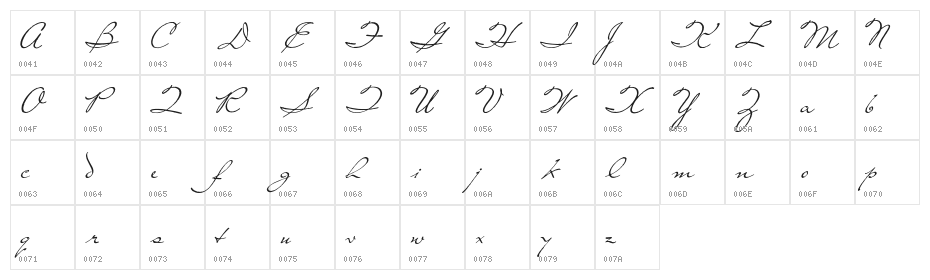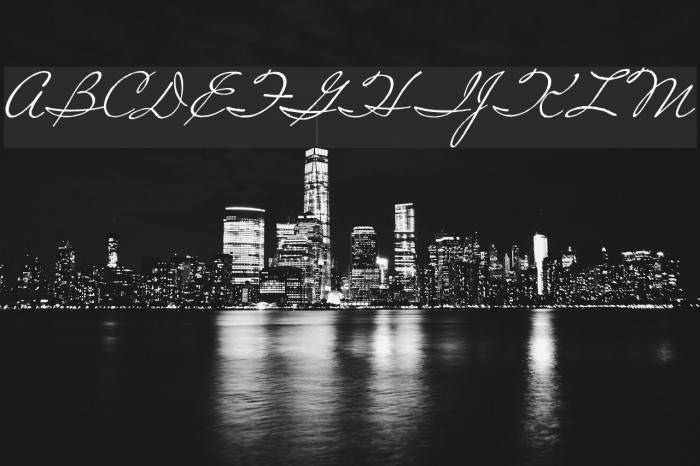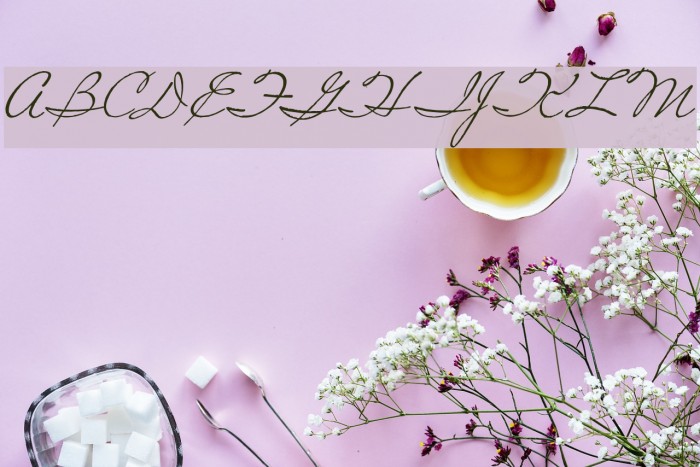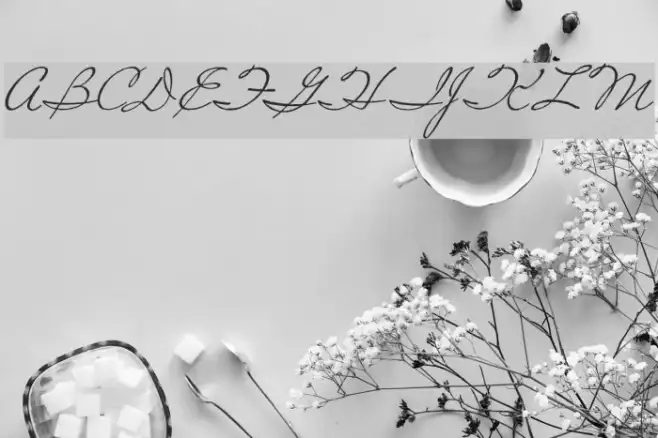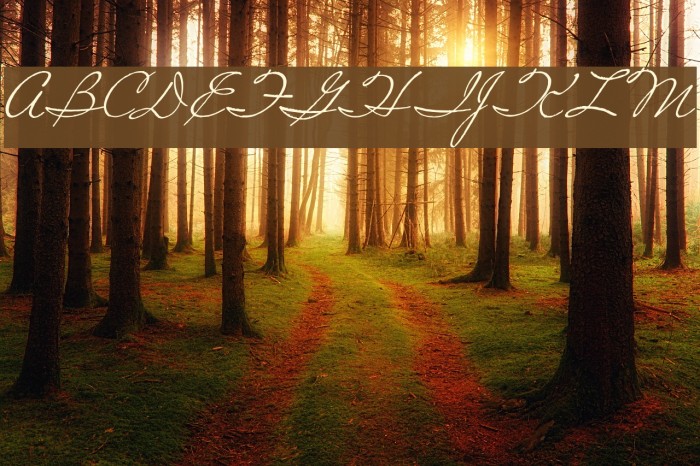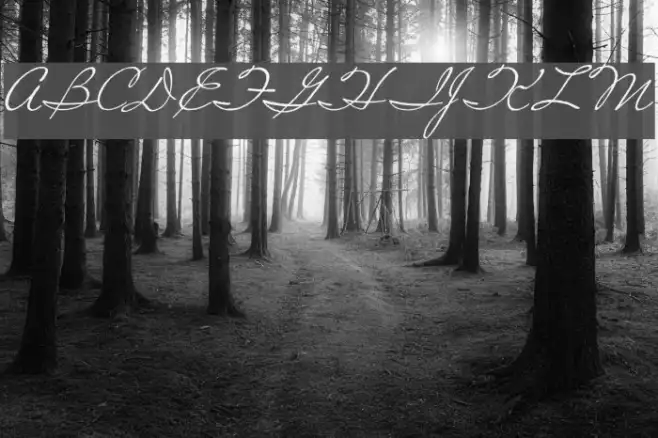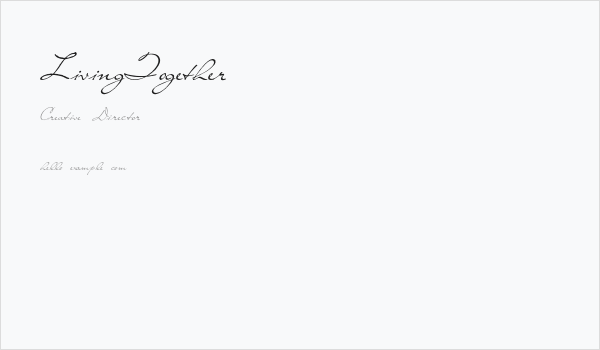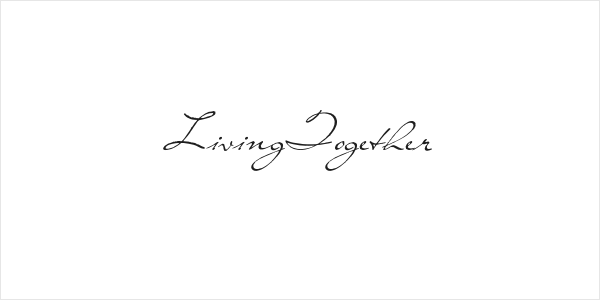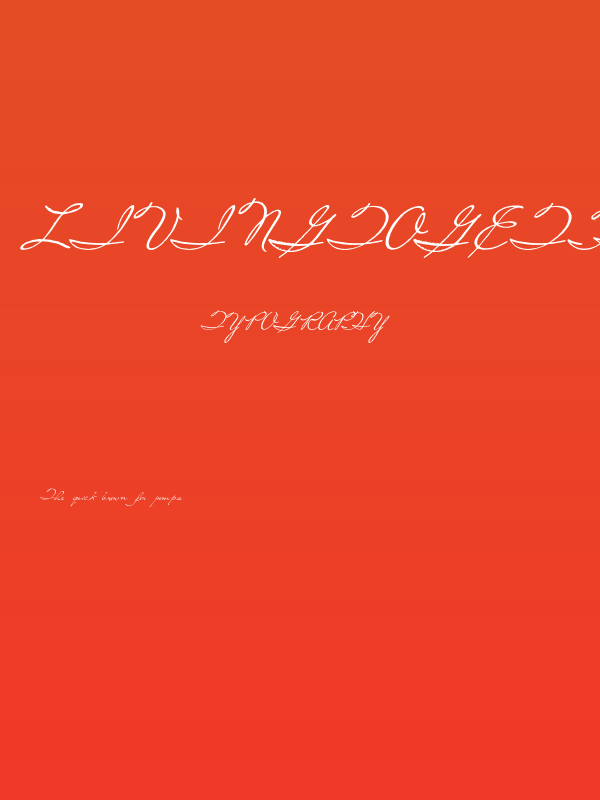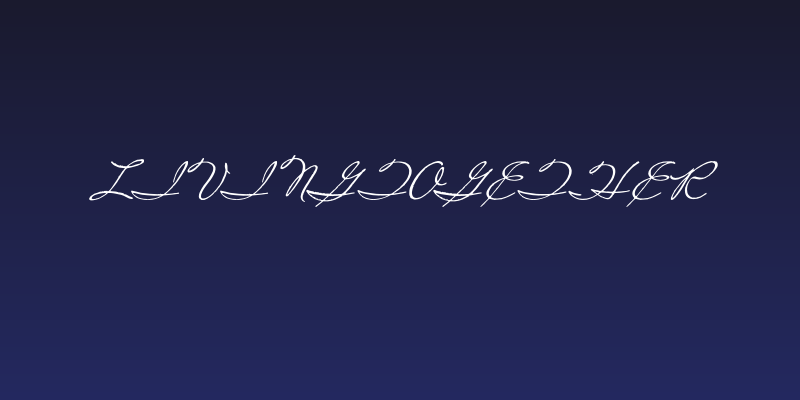
LivingTogether Font
This elegant script font features a flowing, cursive style with intricate loops and swashes, giving it a sophisticated and artistic appearance. The uppercase letters are tall and graceful, with extended ascenders and descenders that add a sense of movement and fluidity. The lowercase letters complement the uppercase with their own unique flourishes, maintaining a consistent and harmonious look throughout. The font exhibits a high contrast between thick and thin strokes, enhancing its decorative quality. Its overall design is reminiscent of traditional calligraphy, making it suitable for formal and creative applications.